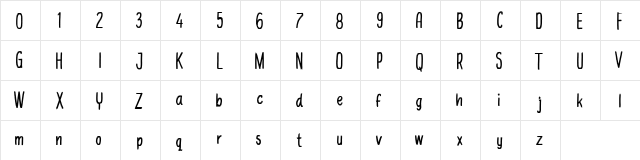
MICHAEL Jackpot Font Preview
| Foundry | Cundrawan |
| Designer | Cundrawan |
Design Context for MICHAEL Jackpot Typeface
MICHAEL Jackpot offers clean, dependable letterforms without strong stylistic allegiance, making it a practical choice for designers who need flexibility.